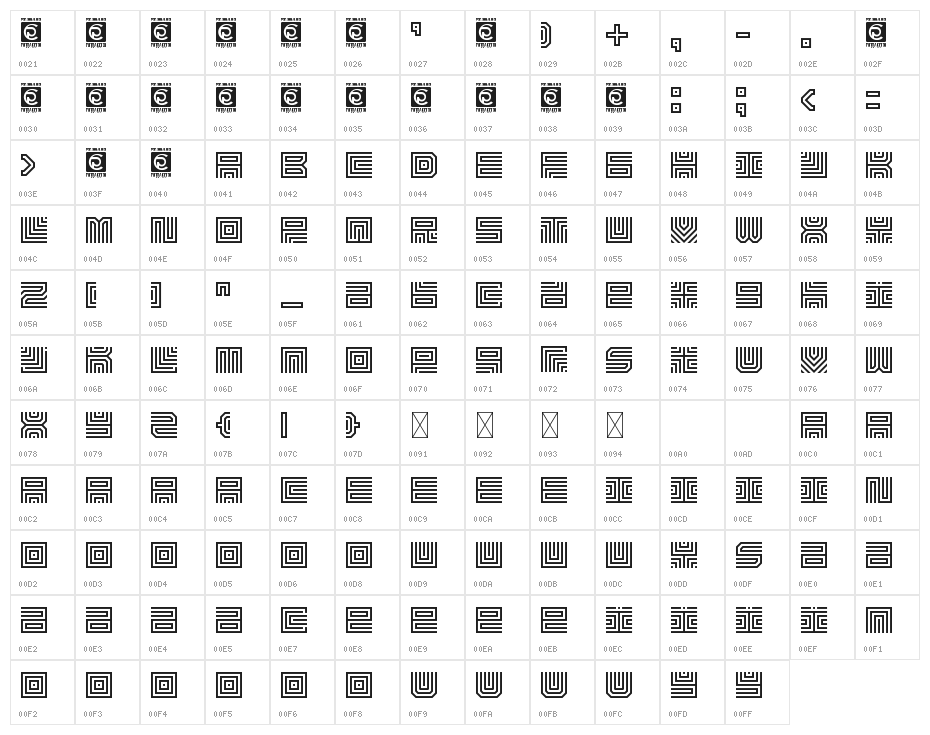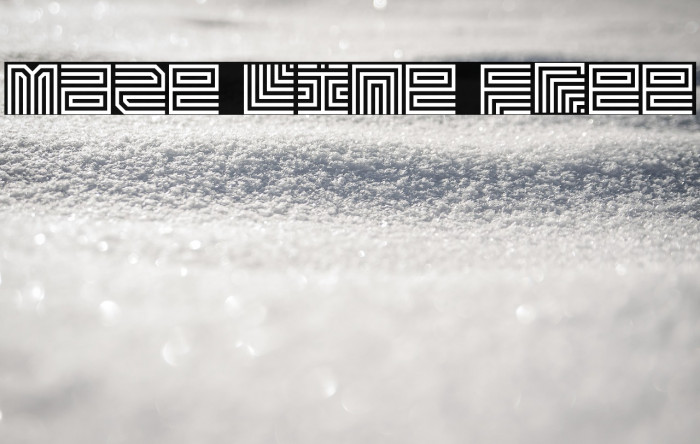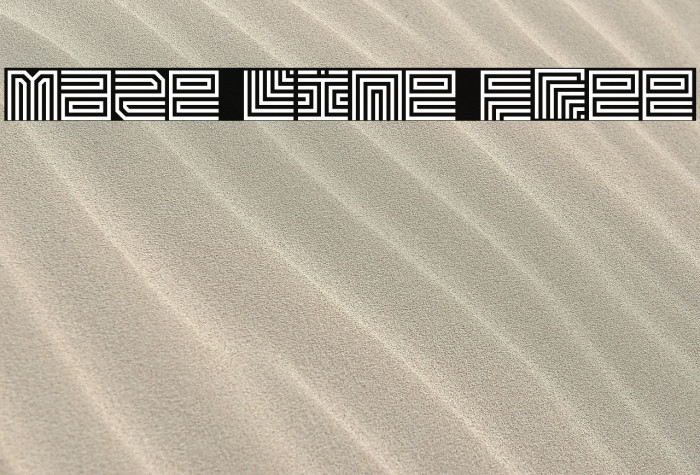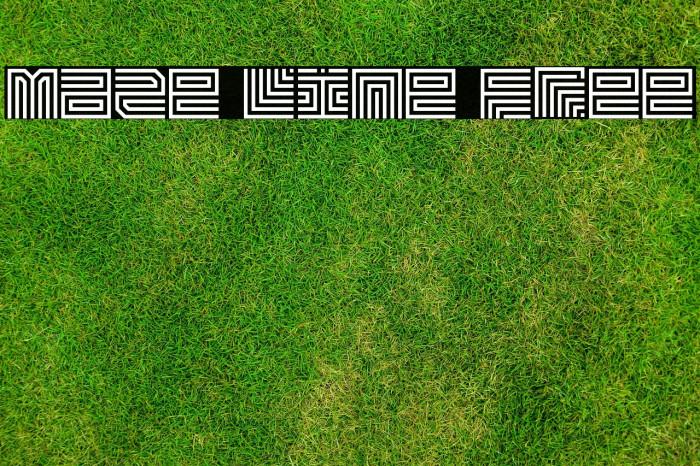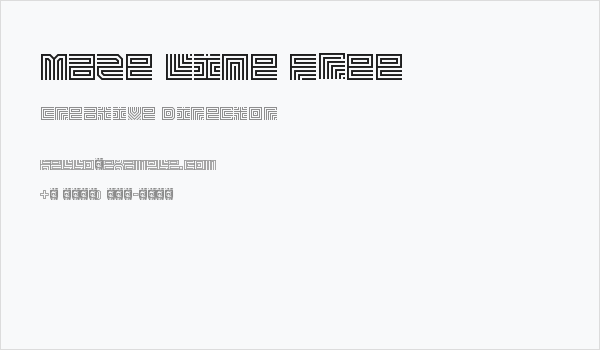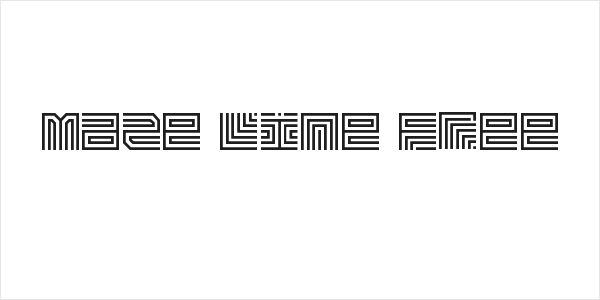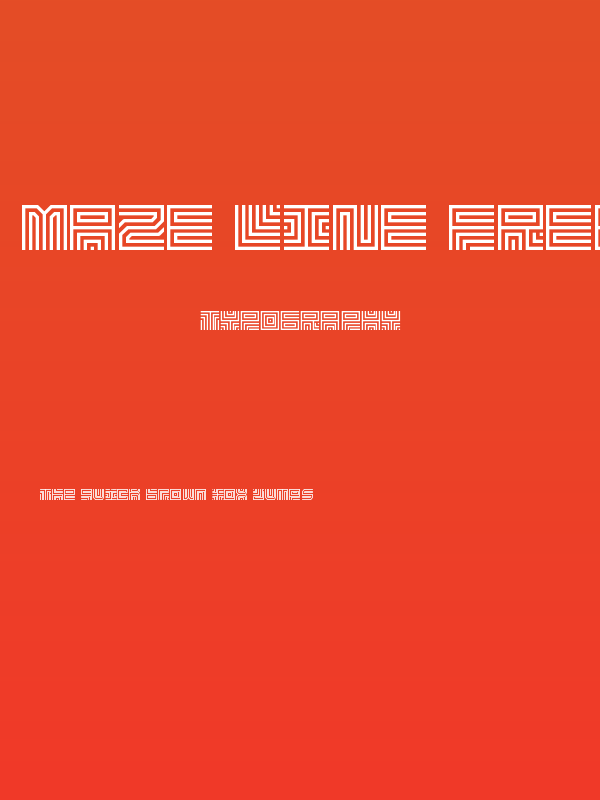
Maze Line Free Font
Maze Line Free Description
This font features a unique maze-like design, with each character composed of intricate lines that form a labyrinthine pattern. The geometric structure gives it a modern and abstract appearance, making it stand out in any design project. The uppercase and lowercase letters maintain a consistent style, with the lines creating a sense of movement and complexity. The numbers and special characters follow the same design principles, ensuring a cohesive look across all elements. This font is ideal for projects that require a bold and artistic touch, offering a visually engaging experience.
| Proposed Projects | Ideal for posters, album covers, branding, and any project needing a bold, artistic flair. |